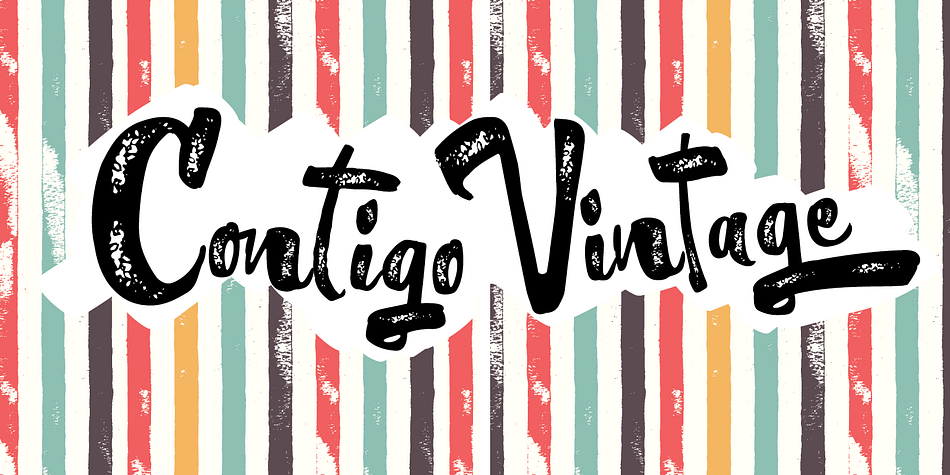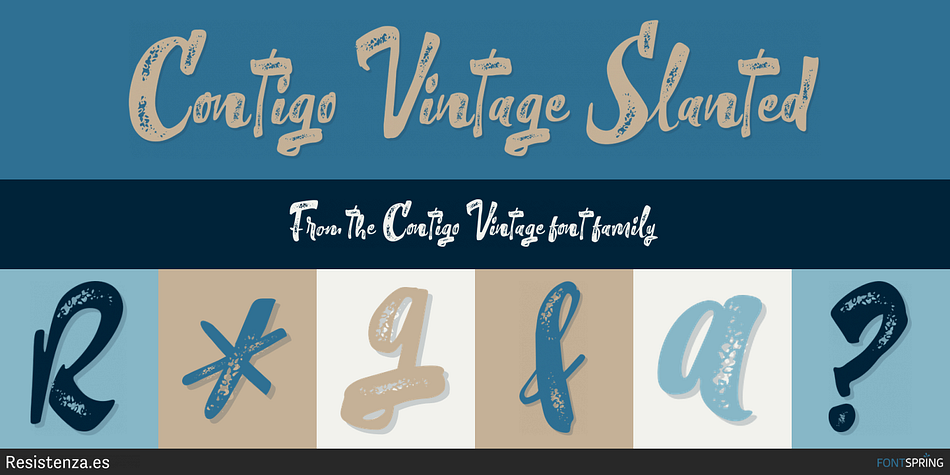
Designed by Giuseppe Salerno and Paco González, Contigo Vintage is a brush display and retro font family. This typeface has two styles and was published by Resistenza.es.
Contigo Vintage Slanted
Contigo Vintage a is a new “grungy” version of Contigo Regular